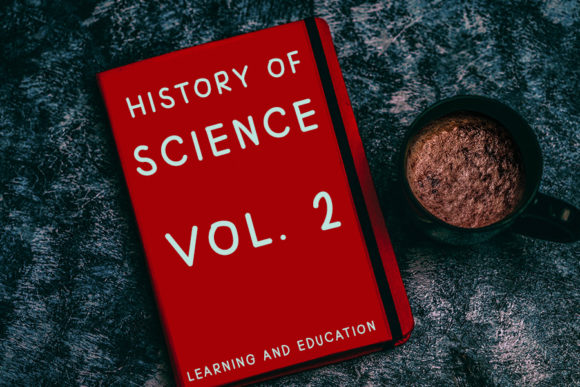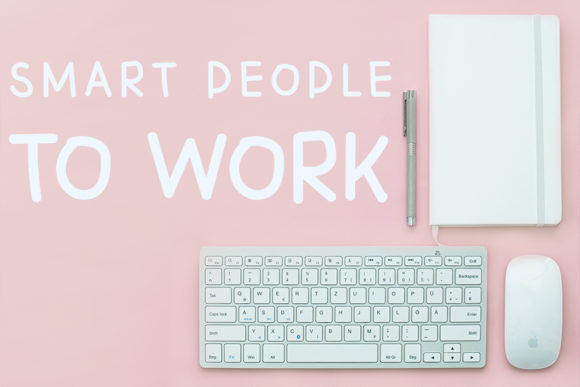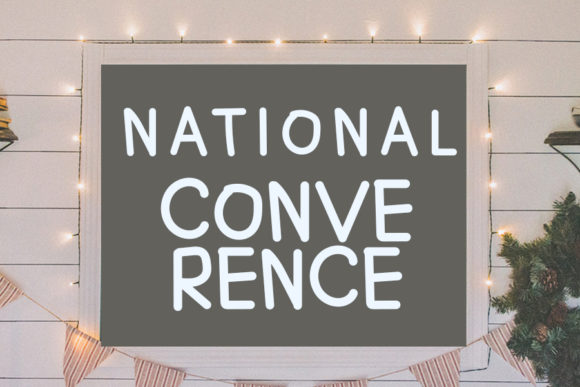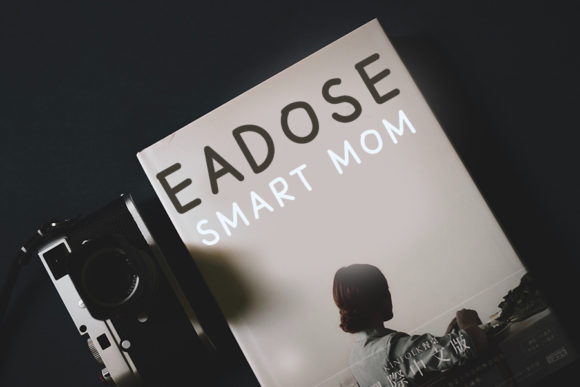
Discover the Delightful Doctor Patrick Font: Elevate Your Designs with a Simple yet Versatile Typeface
Are you on the hunt for a font that embodies simplicity, cleanliness, and a dash of playfulness? Look no further than the Doctor Patrick font. This all-round display font is designed to bring a jolly spirit to your designs, offering endless possibilities for creative expression. In this article, we’ll dive into the world of Doctor Patrick, exploring its features, benefits, and uses, to help you unlock its full potential.
What is Doctor Patrick Font?
Doctor Patrick is a modern, clean, and simple display font that is perfect for designers and crafters seeking a versatile typeface. Its straightforward yet charming design makes it an excellent choice for a wide range of projects, from branding and advertising to packaging and digital media.
Key Features of Doctor Patrick Font
- Simplicity: Doctor Patrick boasts a clean and uncluttered design, making it easy to read and understand.
- Flexibility: This font is incredibly versatile, allowing you to use it in various contexts, from headings and titles to body text.
- Jolly Spirit: Doctor Patrick’s playful undertones add a touch of whimsy to your designs, making them more engaging and memorable.
- Endless Variations: With Doctor Patrick, you can experiment with numerous combinations of letters, words, and phrases to create unique and captivating designs.
Benefits of Using Doctor Patrick Font
So, why choose Doctor Patrick for your design projects? Here are just a few benefits of using this delightful font:
- Easy to Read: Doctor Patrick’s clear and concise design ensures that your message is conveyed effectively, even at smaller font sizes.
- Highly Versatile: This font can be used in a variety of design contexts, from digital media to print materials.
- Time-Saving: With Doctor Patrick, you can create stunning designs quickly and efficiently, thanks to its simple yet effective design.
- Unique and Memorable: The playful undertones of Doctor Patrick help your designs stand out from the crowd, making them more memorable and engaging.
Using Doctor Patrick Font in Your Designs
Now that we’ve explored the features and benefits of Doctor Patrick, let’s discuss how to incorporate it into your design workflow. Here are a few ideas to get you started:
- Branding and Logo Design: Use Doctor Patrick to create a unique and memorable logo that reflects your brand’s personality.
- Social Media Graphics: Add a playful touch to your social media graphics, such as Facebook posts, Instagram stories, and Twitter headers.
- Packaging Design: Create eye-catching packaging designs that showcase your product’s personality and style.
- Digital Media: Use Doctor Patrick in your digital media projects, such as video titles, blog posts, and website headers.
Tips and Tricks for Getting the Most Out of Doctor Patrick
To help you unlock the full potential of Doctor Patrick, here are a few tips and tricks:
- Experiment with Colors: Try pairing Doctor Patrick with different colors to create unique and captivating designs.
- Play with Font Sizes: Experiment with various font sizes to add visual hierarchy and emphasis to your designs.
- Mix and Match: Combine Doctor Patrick with other fonts to create interesting and dynamic typography.
In conclusion, Doctor Patrick is a simple yet versatile display font that can elevate your designs and bring a touch of playfulness to your projects. With its clean design, flexibility, and jolly spirit, this font is perfect for designers and crafters seeking a reliable and creative typeface. So, have fun with Doctor Patrick, explore its endless variations, and discover the possibilities!